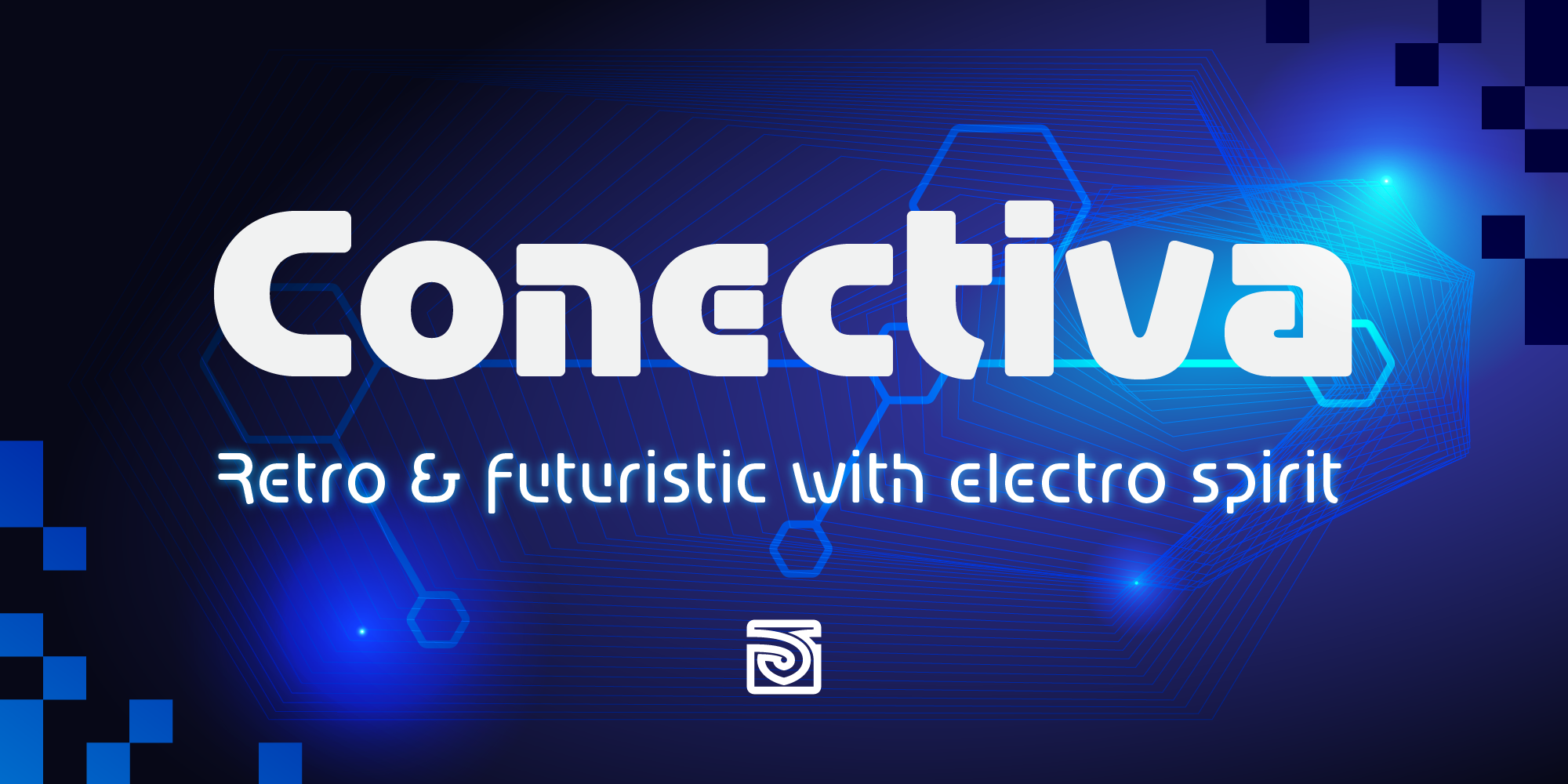
The Conectiva Font is incredibly versatile, making it an excellent choice for a wide array of design projects that aim to convey a sense of modern dynamism, technological precision, and sleek connectivity. Imagine it bringing a crisp, forward-thinking edge to software branding and tech company logos, making intricate data visualizations pop with clarity, or adding a sophisticated, streamlined feel to editorial layouts for digital culture and innovation publications. It's also fantastic for crafting intuitive user interfaces, unique event invitations for tech conferences, and commanding website headers that stand out with their contemporary appeal. Its inherent clarity and precise construction make it perfect for any project striving to communicate efficiency, advanced concepts, and a seamlessly integrated visual message.
What makes Conectiva Font so exciting is its unique ability to blend geometric rigor with a subtle sense of flow and connection, often seen in its character design or ligature options. It frequently features clean lines, open counter-forms, and a consistent visual rhythm that gives it an immediate sense of reliability and modern appeal. This font doesn't just display text; it weaves a network of ideas, making your message feel authoritative, interconnected, and effortlessly chic. Its balance of robust presence and remarkable clarity ensures that your designs are not only visually effective but also easily understood. It's a typeface that brings an atmosphere of contemporary innovation and functional beauty to your typography, guaranteeing your projects leave a polished and memorable impression.
The Conectiva Font family typically includes a comprehensive range of weights and stylistic alternatives to provide extensive creative flexibility. While specific options can differ, you can generally expect to find alternatives like Regular, Bold, and potentially a Light, Italic, or Monospace version, allowing for diverse visual impact and hierarchy. These different weights and stylistic sets allow you to create dynamic visual structures and add nuanced artistic flair to your typography, ensuring a cohesive and thoughtfully designed outcome. This comprehensive family support ensures that whether you need a strong, commanding headline or a subtle, precise accent, Conectiva Font Free Download offers the perfect elements to bring your modern vision to life.